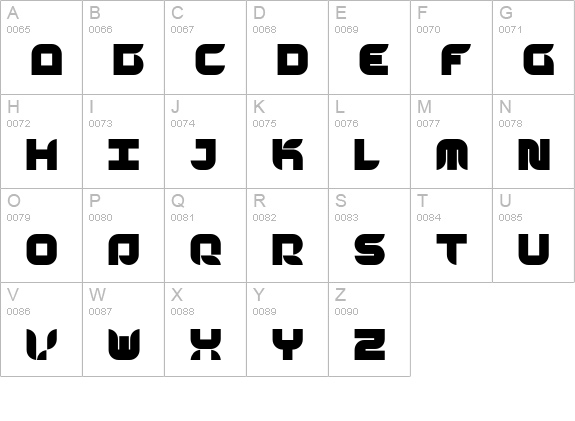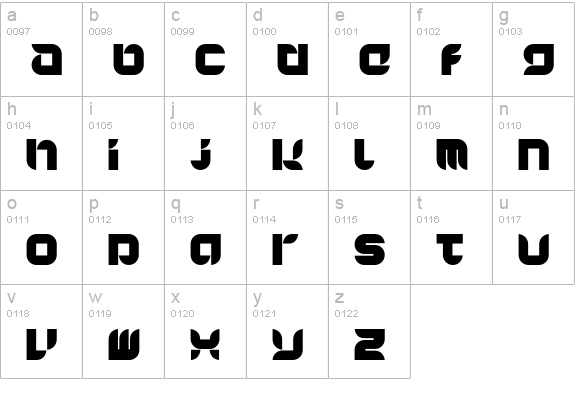
Yr72-Bold Font Details
Yr72-Bold is a strong, high-contrast variant in the Yr72 typeface family \xE2\x80\x94 well suited to headlines, attention-grabbing titles, and strong calls-to-action.